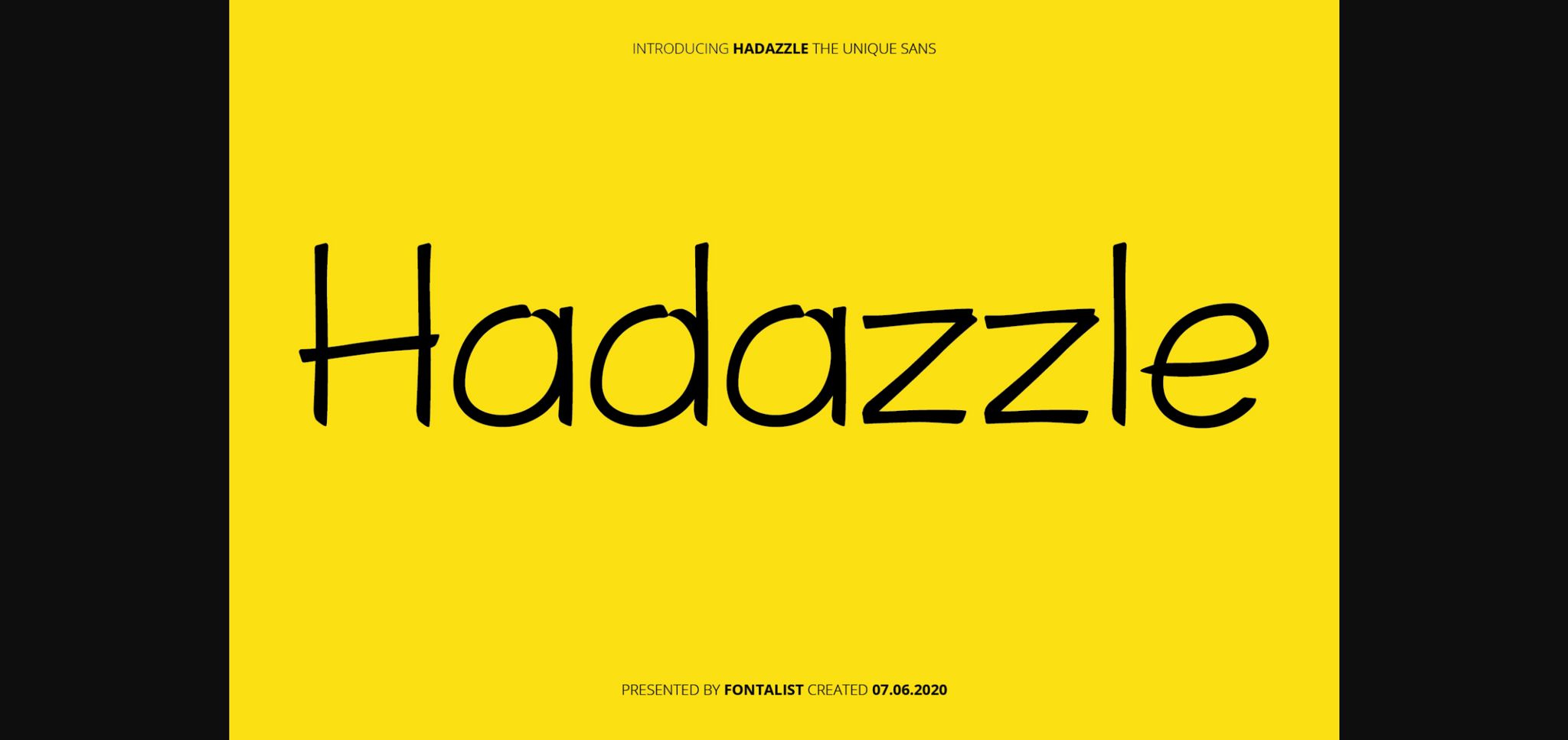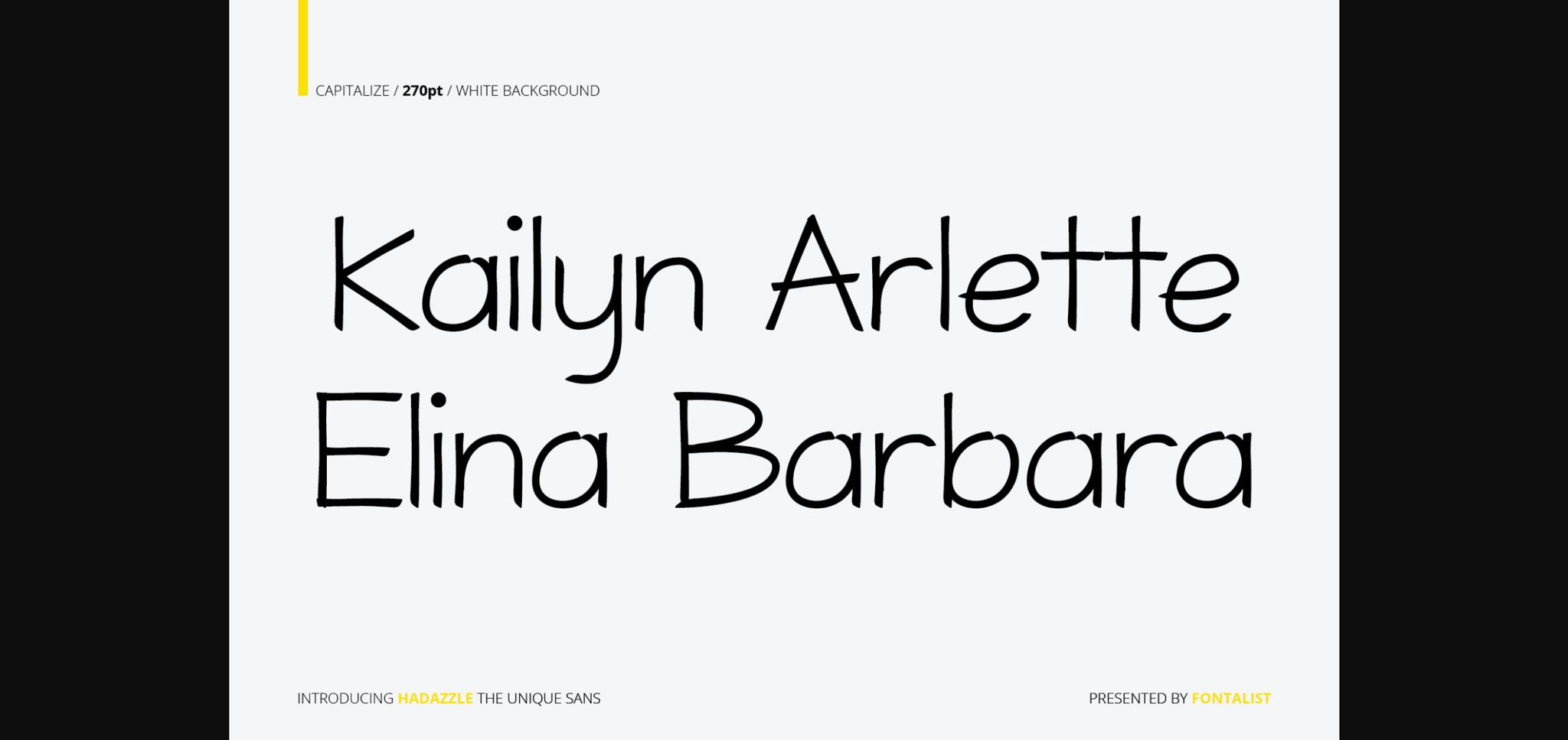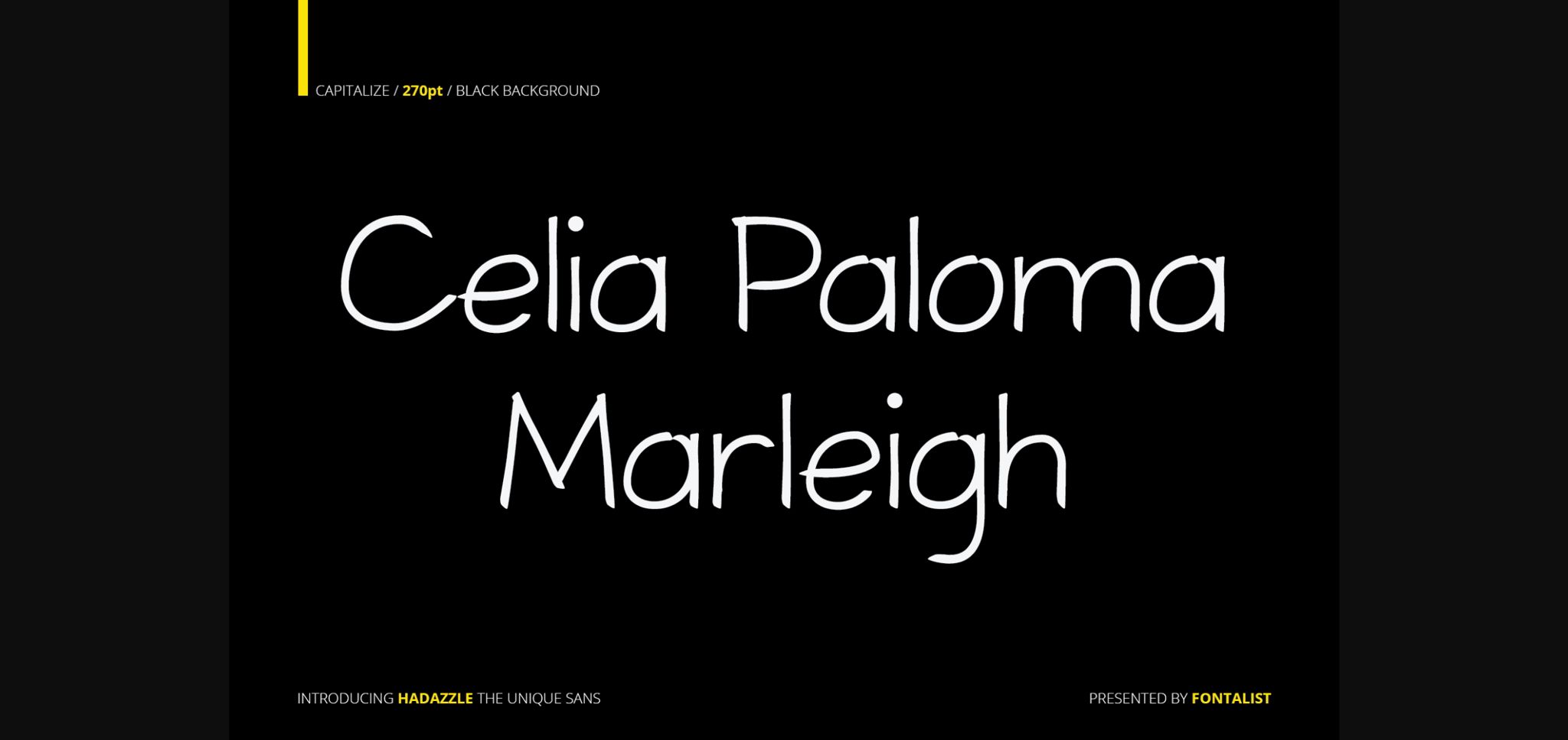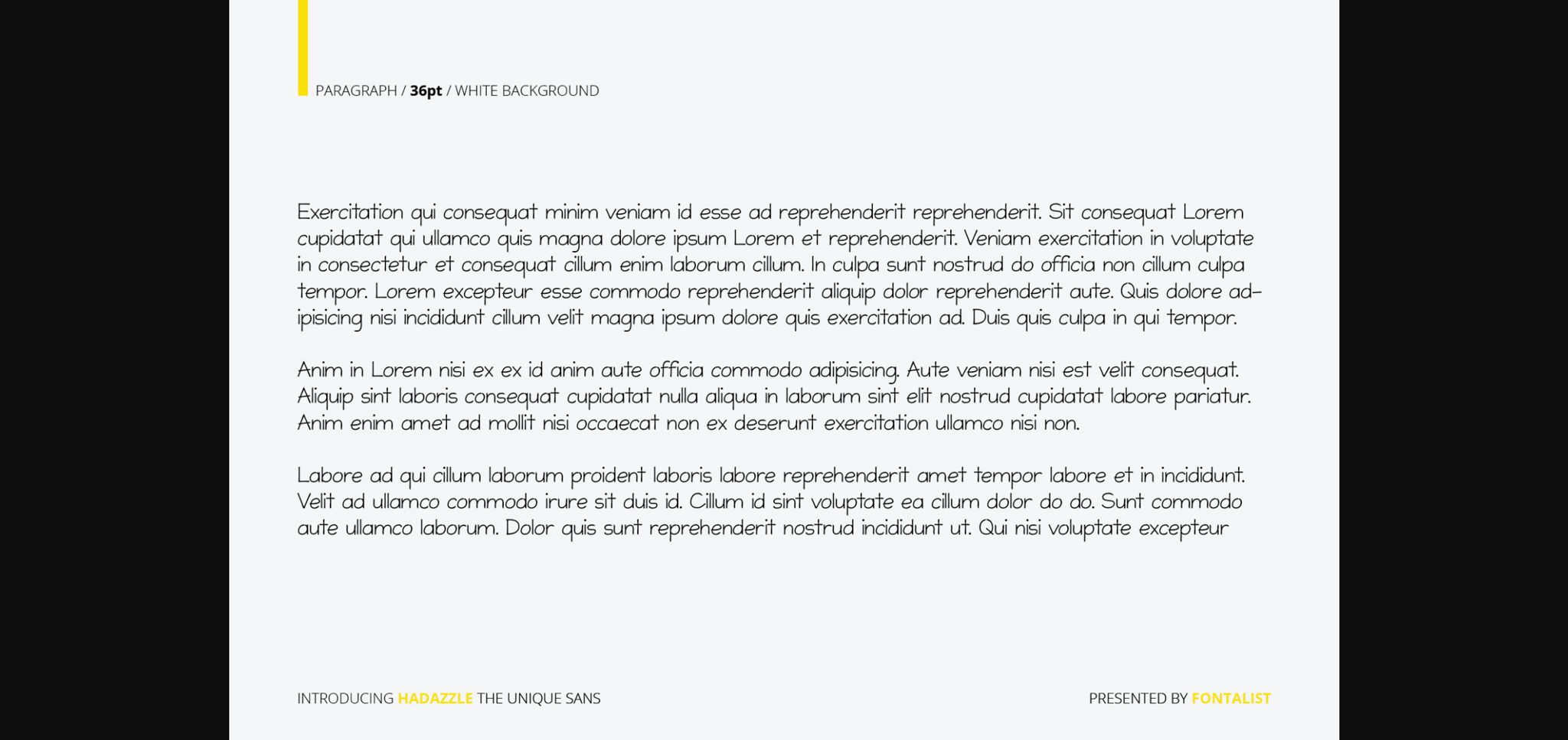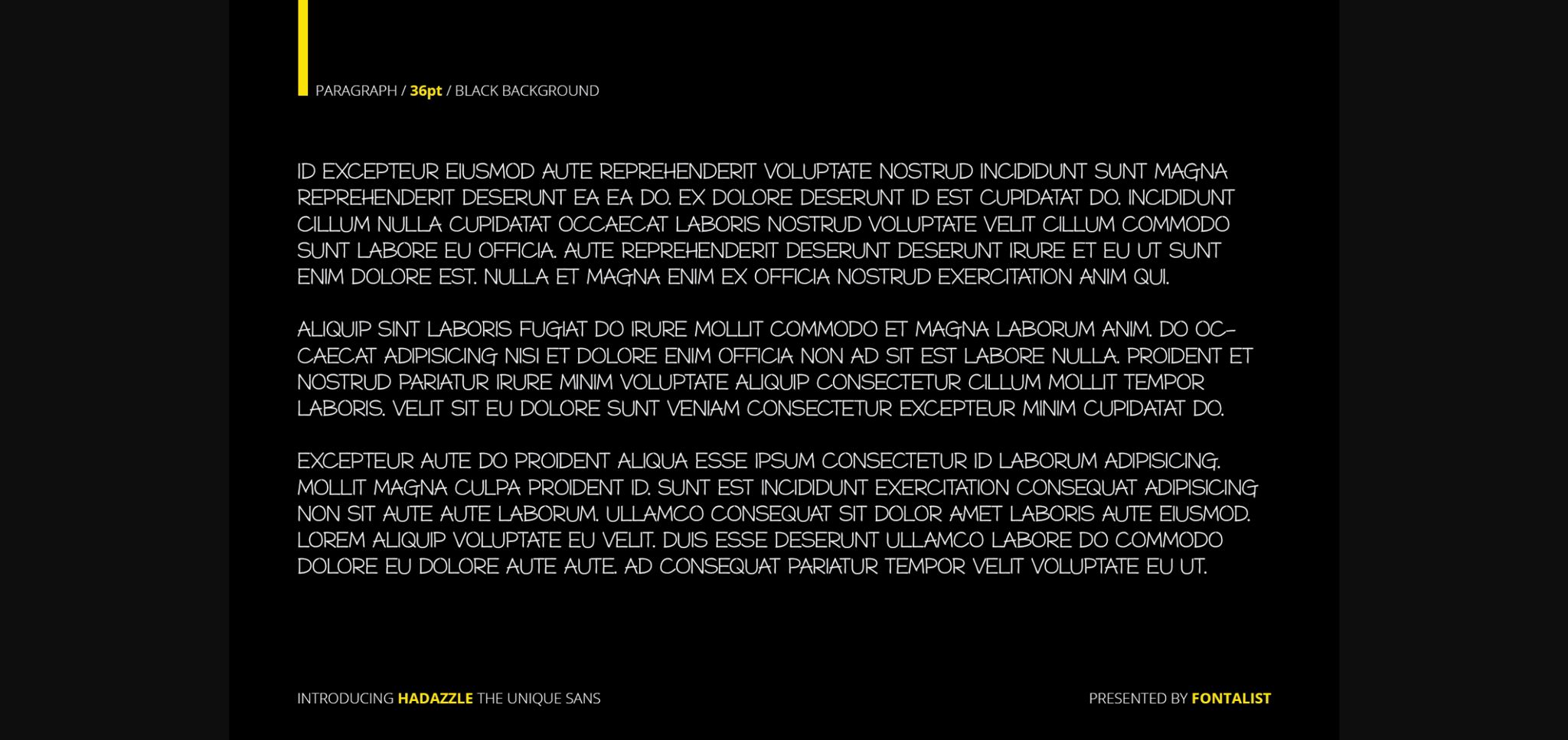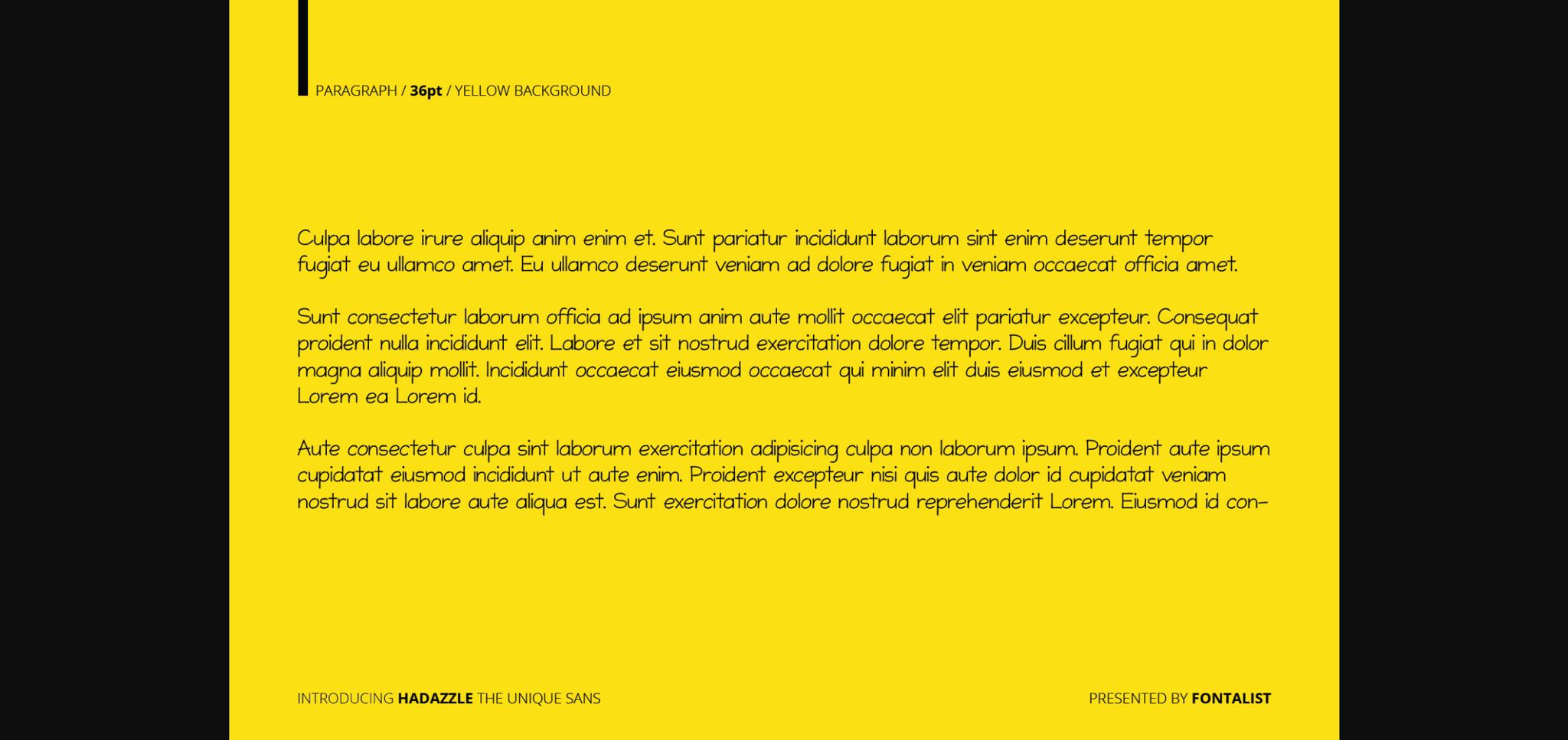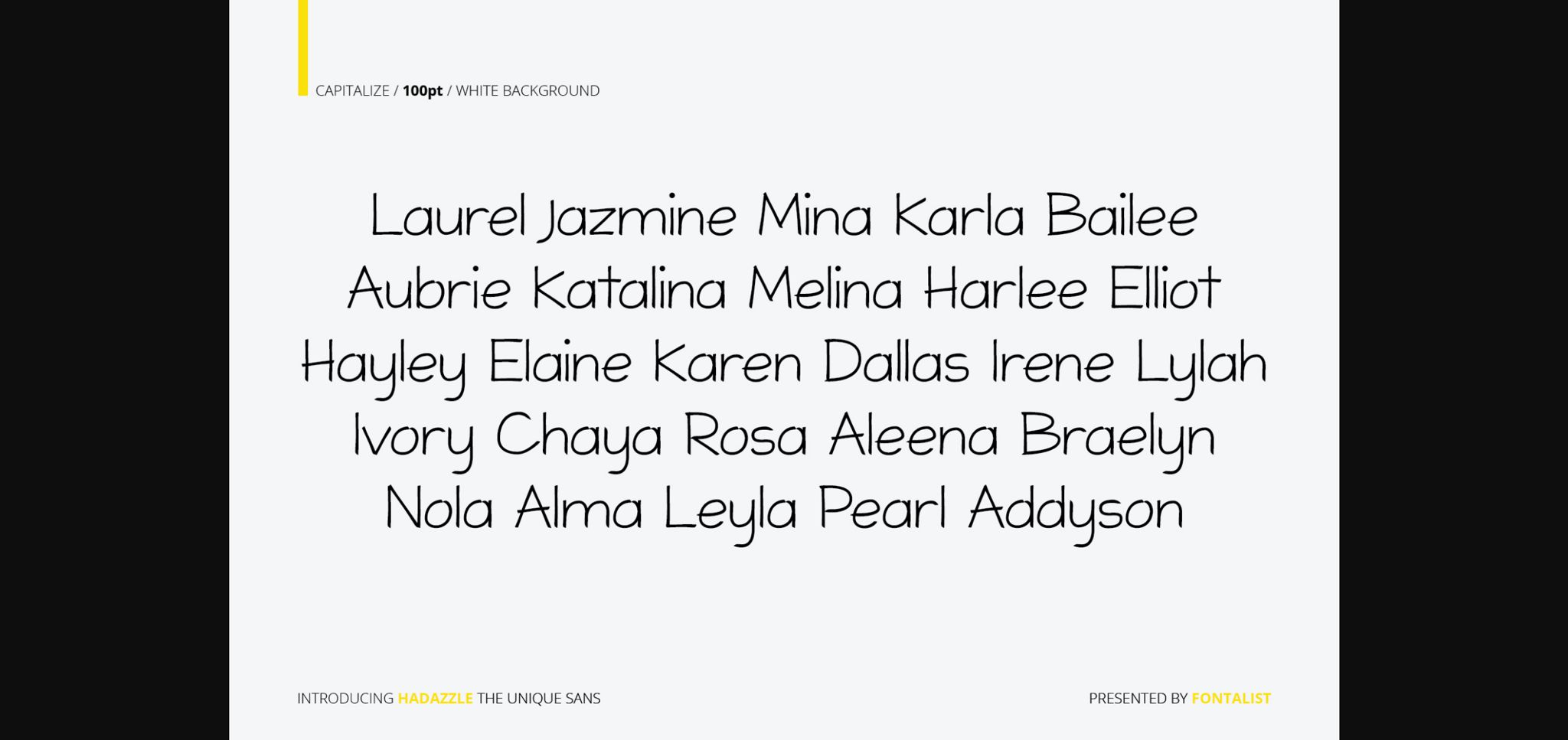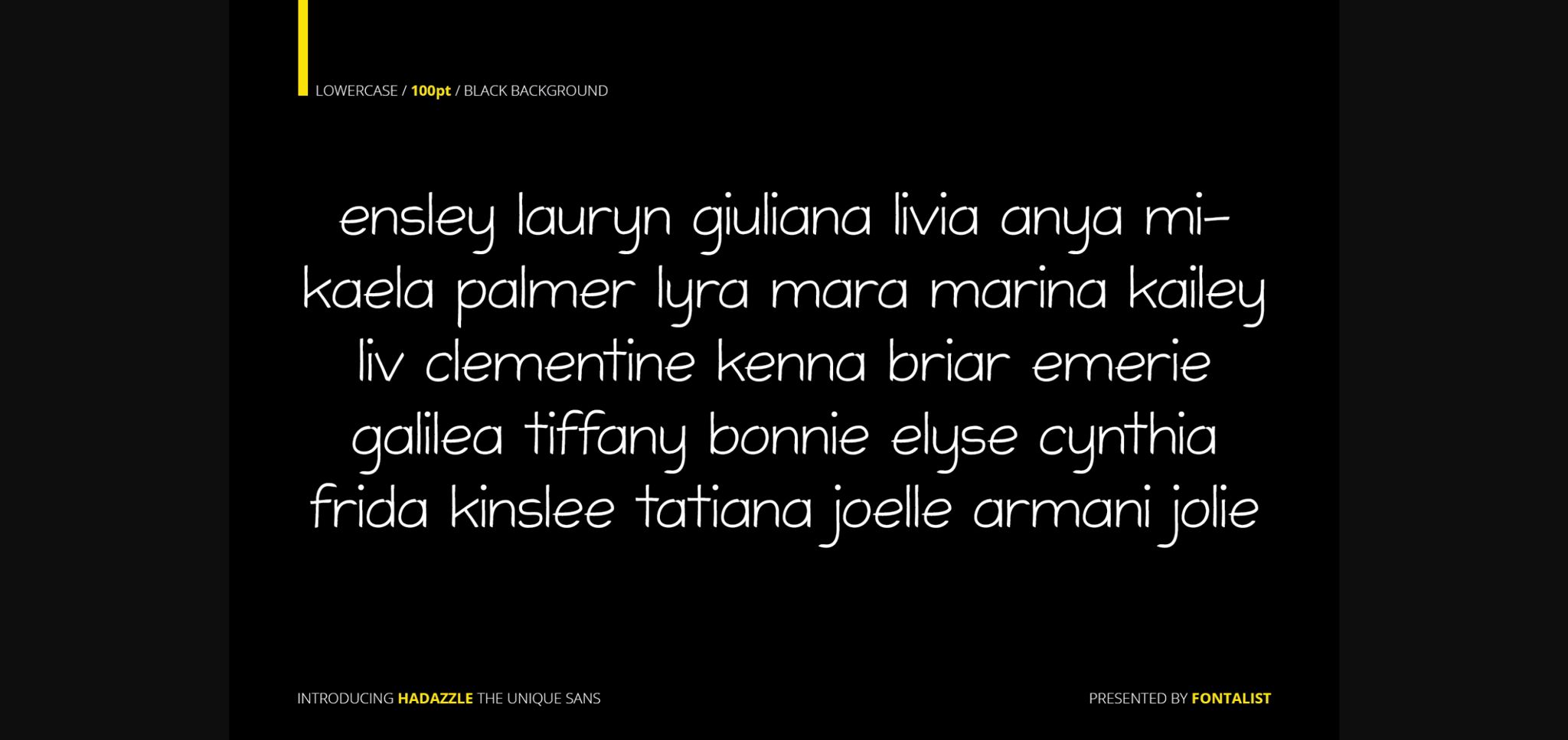
Hadazzle Font
About Hadazzle Font
Hadazzle is a minimal and neat sans serif font. It can easily be matched to an incredibly large set of projects, so add it to your creative ideas and notice how it makes them stand out!